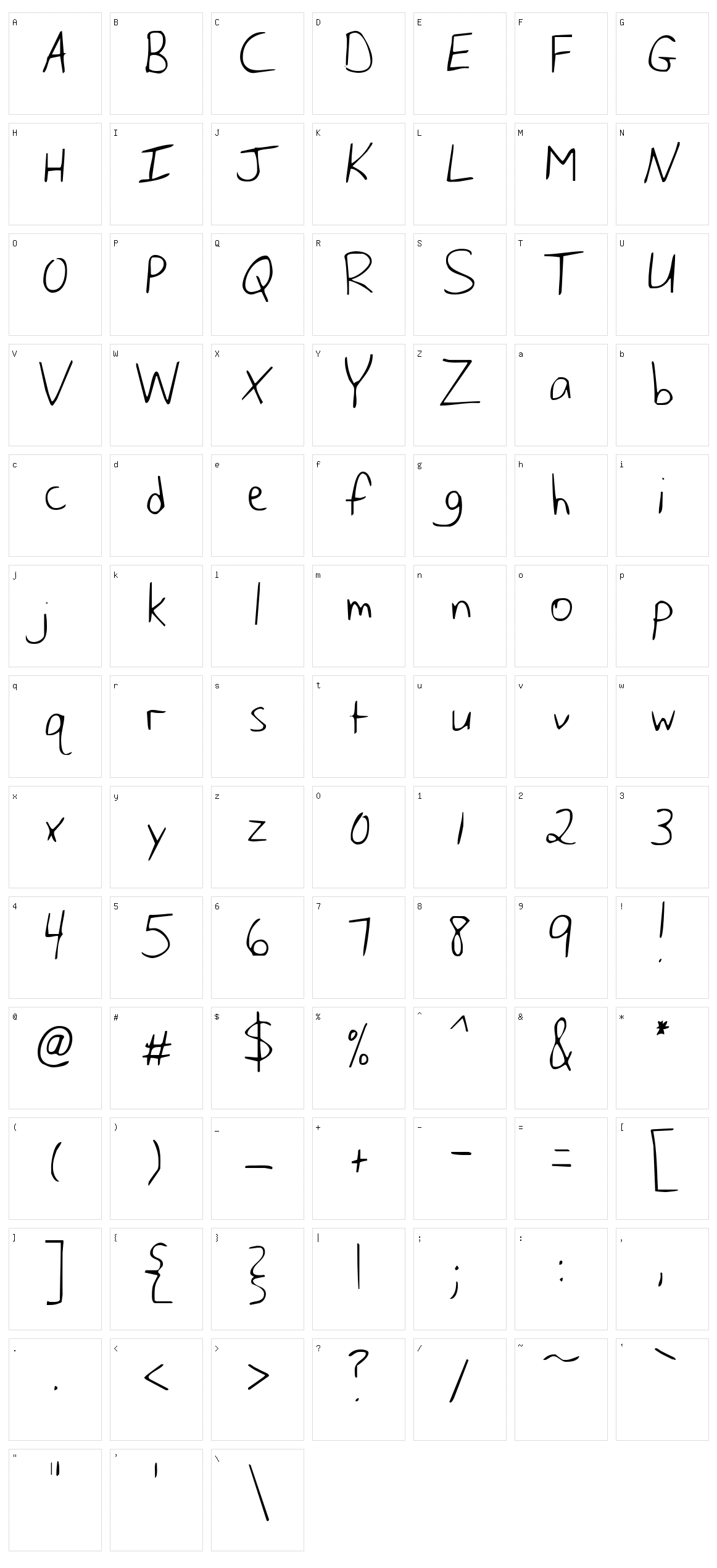
The free font Husband of the Millennium is carefully designed by Kimberly Geswein, showcasing a thoughtful balance of creativity and usability and falls under the Script font style. When you download the ZIP file, it contains only 24.59 KB of font files, making it lightweight and quick to download. Please review the license details below to understand permitted usage and distribution rights. If license information is not available, we recommend using this font for personal projects only or contacting the author directly for commercial usage permissions.